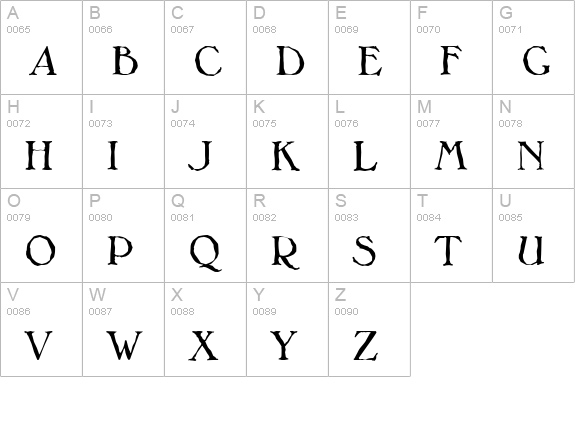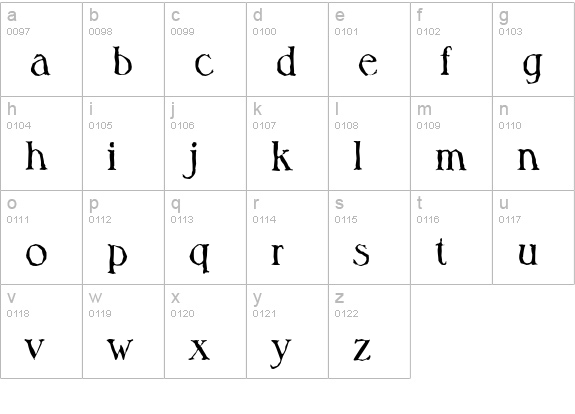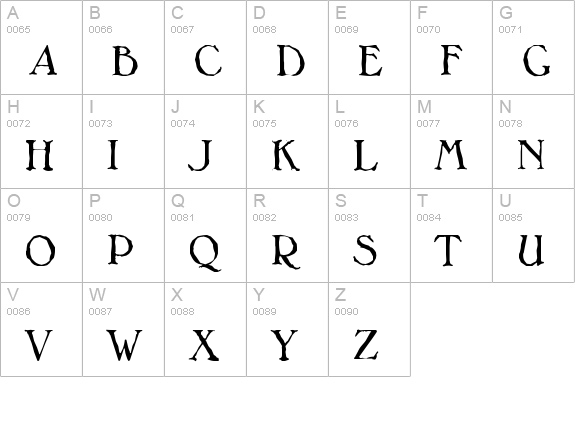
MelbourneAntique-Regular Font Details
MelbourneAntique-Regular is the standard, neutral variant in the MelbourneAntique typeface family \xE2\x80\x94 well suited to general body text, paragraphs, and standard typographic work.
MelbourneAntique-Regular is a timeless and elegant font that exudes a sense of vintage charm and sophistication. With its delicate serifs and classic letterforms, this typeface brings a touch of old-world beauty to any design project. Whether you're creating invitations, posters, or branding materials, MelbourneAntique-Regular adds a touch of elegance and refinement. And the best part? MelbourneAntique-Regular is available for free download at FontsMarket.com. So you can easily add this exquisite font to your collection without any cost. Don't miss out on this opportunity to elevate your designs with the timeless beauty of MelbourneAntique-Regular. Download it today and add a touch of vintage flair to your projects.